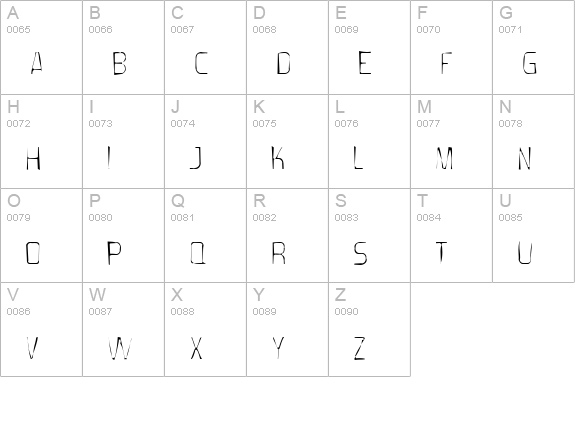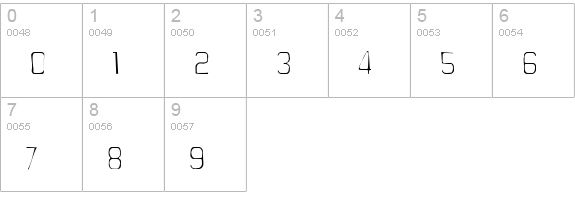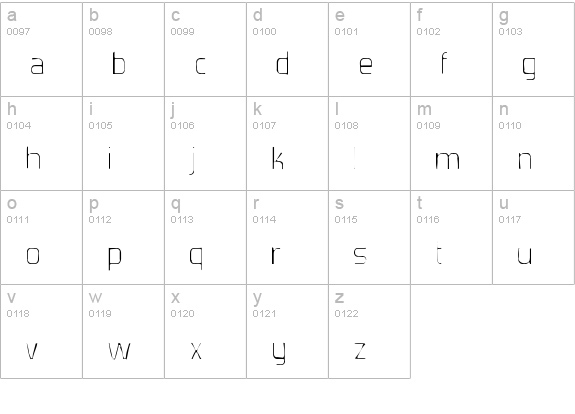
The Forgotten Futurist Gaunt font is a striking display typeface that embodies a unique blend of futuristic aesthetics and traditional elegance. Its sleek and slender letterforms exude a sense of sophistication and innovation, making it perfect for projects that require a touch of modernity and style. Available for free download at FontsMarket.com, this font offers endless creative possibilities for designers, artists, and creators looking to make a bold statement with their work. Whether used for branding, editorial design, or digital projects, Forgotten Futurist Gaunt will surely captivate audiences with its distinct and eye-catching appearance. Embrace the future of typography with this remarkable font, and let your creativity soar with the freedom and versatility it provides. Download Forgotten Futurist Gaunt today and elevate your designs to new heights of visual excellence.